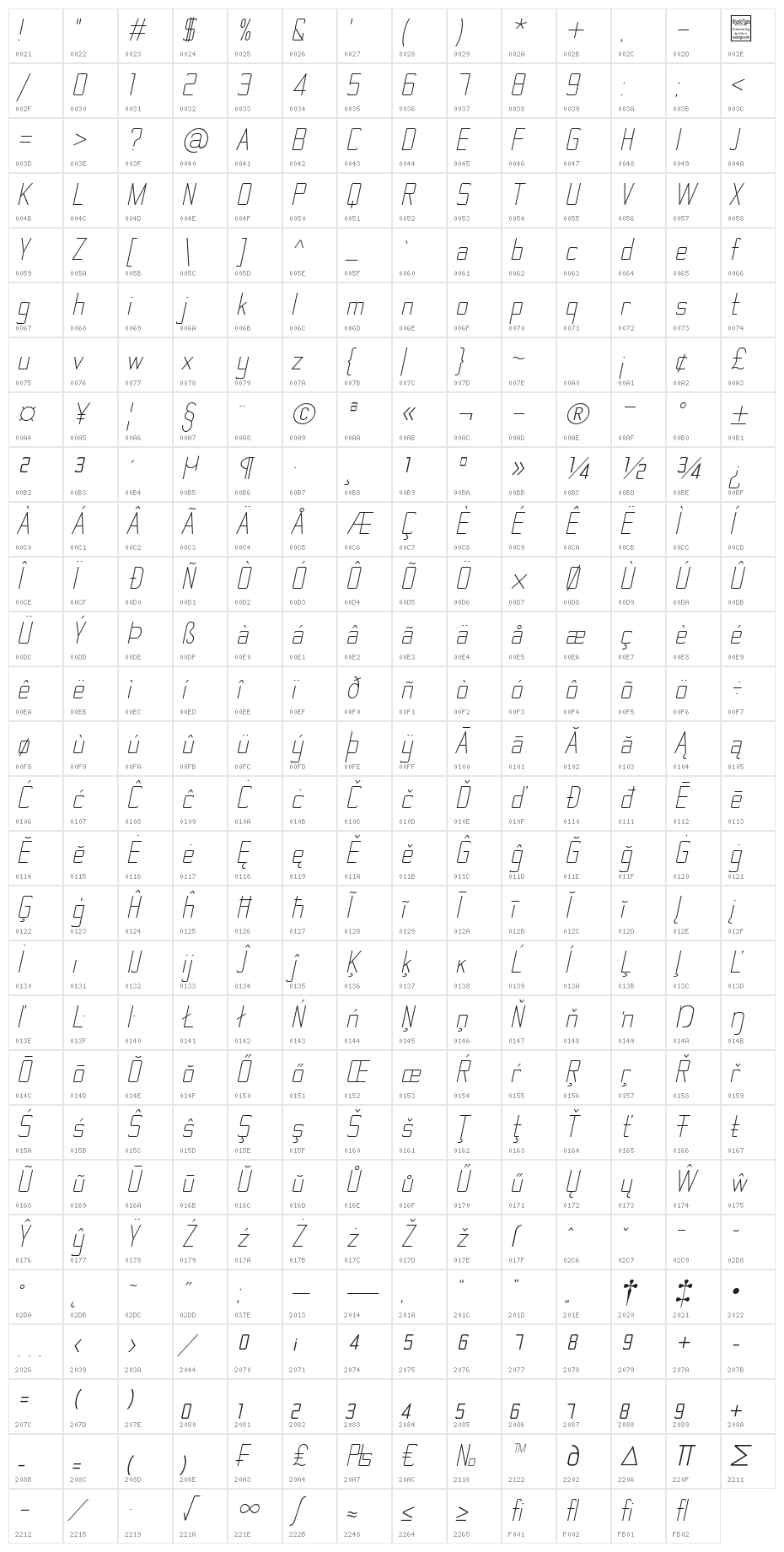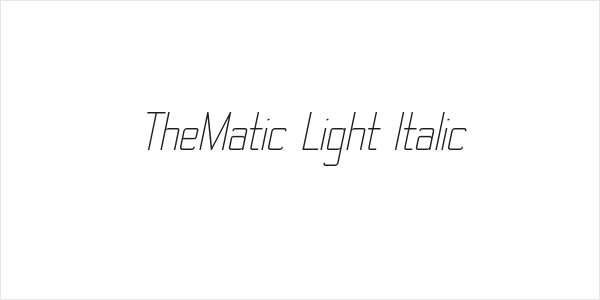
TheMatic Light Italic Font
TheMatic Light Italic Description
This font features a sleek, modern design with a light and airy feel. The characters are elongated and slightly slanted, giving an italicized appearance that adds a sense of motion and elegance. The strokes are thin and consistent, contributing to a clean and sophisticated look. The font maintains a uniform width across all characters, enhancing readability while maintaining a stylish aesthetic. Its geometric structure is evident in the precise angles and straight lines, making it suitable for contemporary design projects.
Proposed ProjectsIdeal for modern branding, fashion magazines, tech websites, and minimalist design projects.